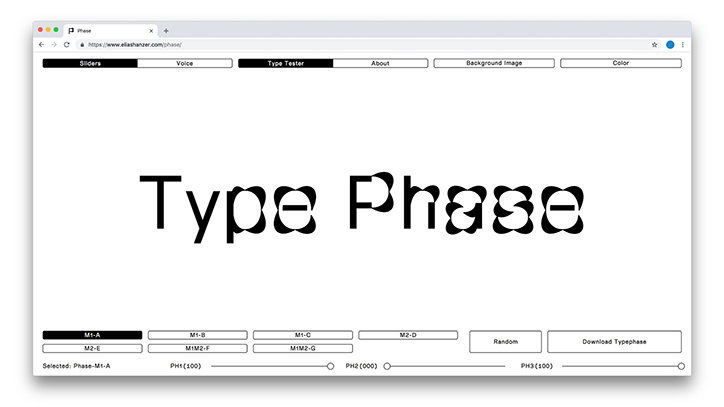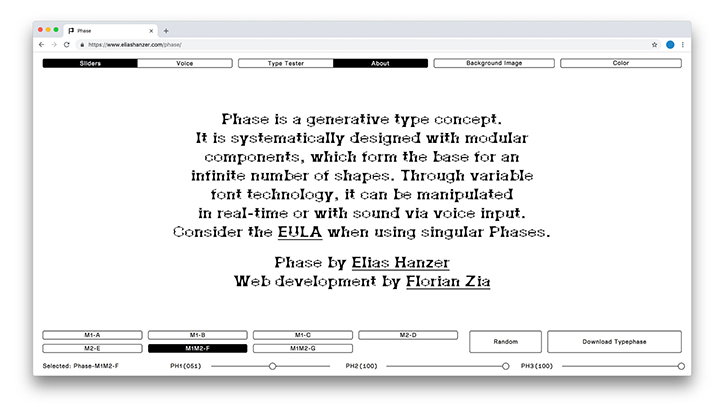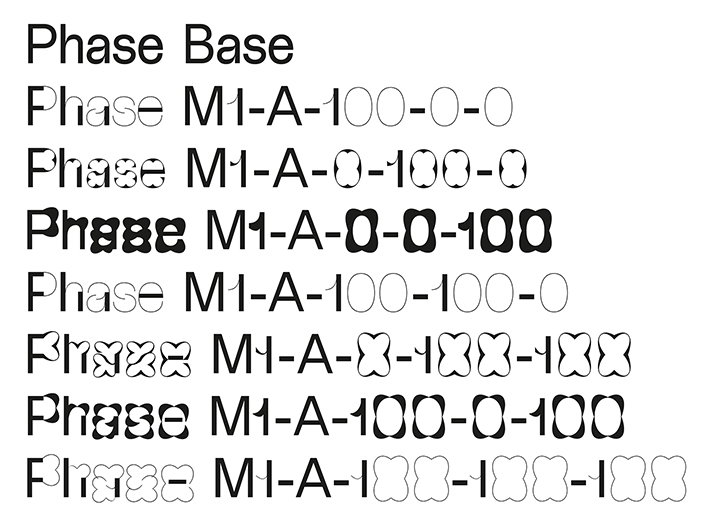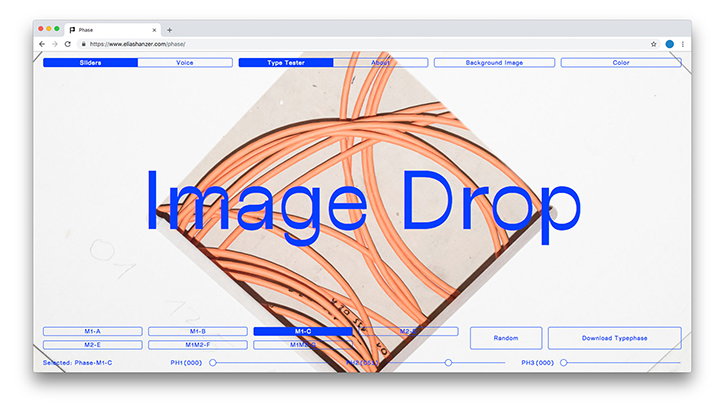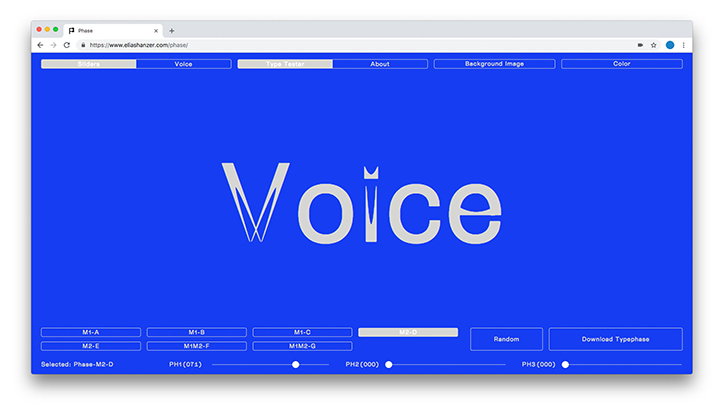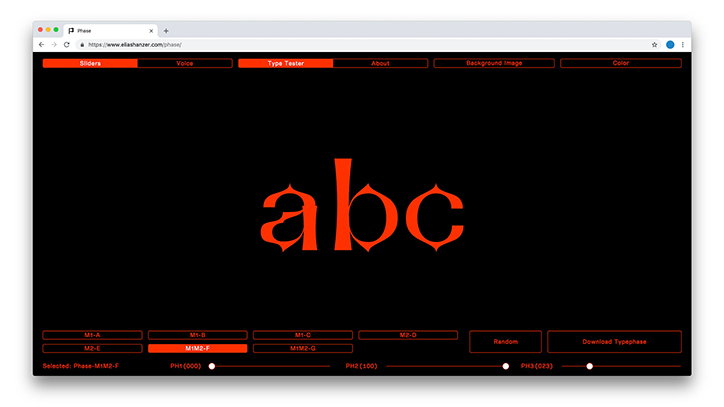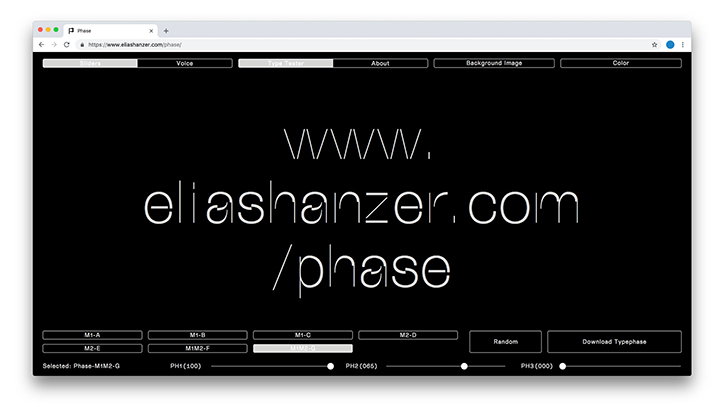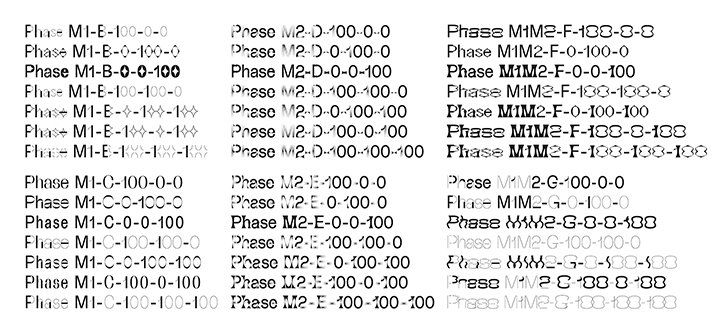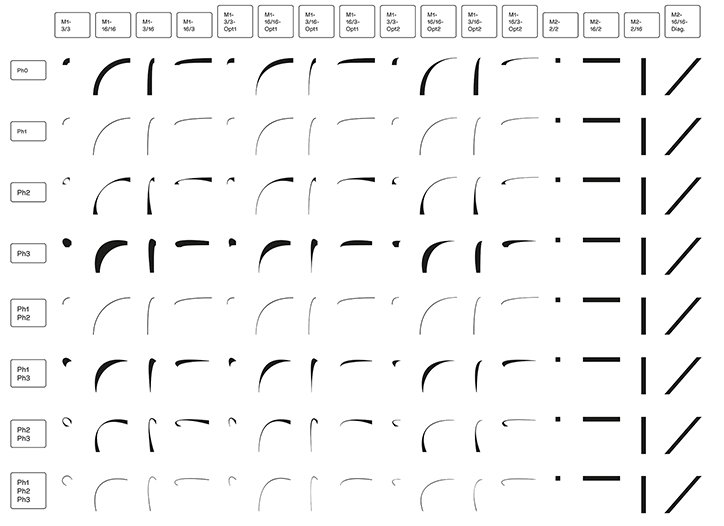
Phase, a generative type tool by Elias Hanzer, manipulates letters by hand or sound
Built as a digital tangent microsite to Elias’ already strong typographic portfolio of work, the project titled Phase features a new typeface by the designer which can react to either a manual slider or sound, with web development by Florian Zia. Depending on your choice of typographic manipulation, characteristics of Elias’ typeface will grow thicker or thinner, morphing from the readable into the decorative, or vice versa.
An experiment, Phase developed from “the specific question on what a modular typeface can be and wherein lie its strengths,” Elias tells It’s Nice That, “as well as the statement that every visual code or style is built upon a more or less modular system.” Identifying how the emergence of typographic styles goes hand-in-hand with technological assistance, “the extent to which or whether this technology will influence the shape of our writing and symbols cannot be predicted at this point” says the designer. In turn, this unknowingly led Elias to conduct his own research.
With this idea in mind, Phase features a modularly designed font “that consists of only two building blocks – a circular and a linear one,” points out Elias. Each of the blocks can then be pushed and pulled, and in turn, “a typeface is built that is no longer visible in its modular structure.” Modular typefaces are beneficial as if you manipulate one element everything else changes, leading Elias to use this as a base, before encouraging it to take on its own forms through phases.
Consequently, Elias’ website should be used more “as a kind of construction kit and at the same time a showcase for Phase,” says the designer while simultaneously acting as a digital embodiment of how the type design world is changing in how it “moves, adapts or reacts to external influences.”
Elias Hanzer: Displayed Typephase: Phase-M1M2-F-51-100-100
Elias Hanzer: Overview #1 of Extremes of Phase M1-A
Elias Hanzer: Displayed Typephase: Phase-M1-C-0-51-0, background image: Photography by Nora Hollstein
Elias Hanzer: Displayed Typephase: Phase-M2-D-71-0-0
Elias Hanzer: Displayed Typephase: Phase-M1M2-F-0-100-23
Elias Hanzer: Displayed Typephase: Phase-M1M2-G-100-65-0
Elias Hanzer: Overview #2 of Extremes of Phase B-G
Elias Hanzer: Overview of Smart Components of Phase M1-A